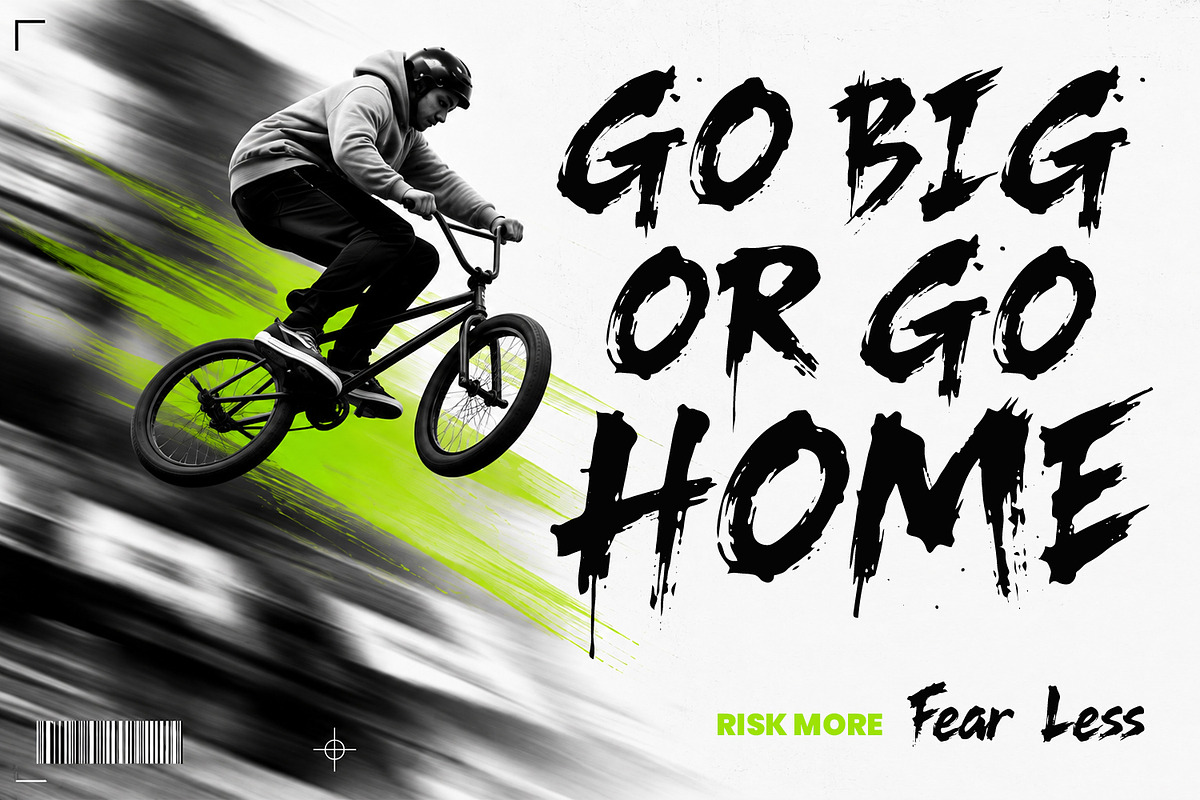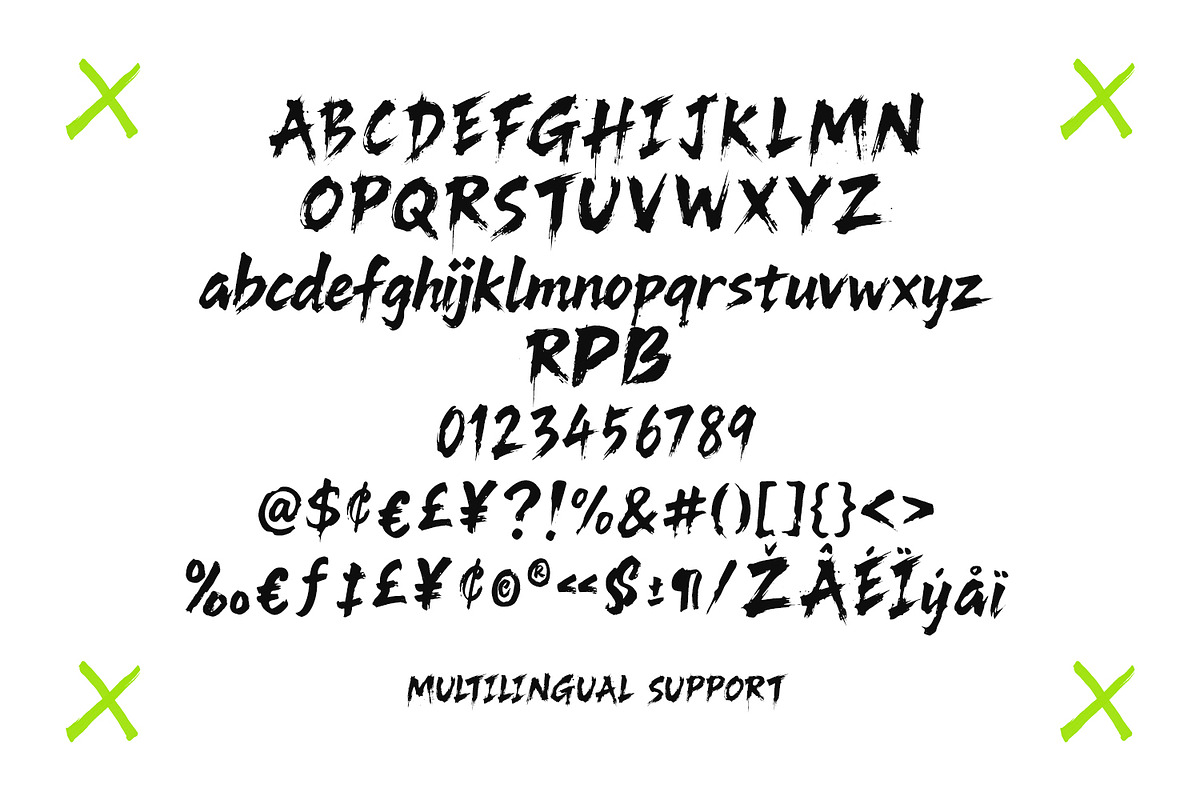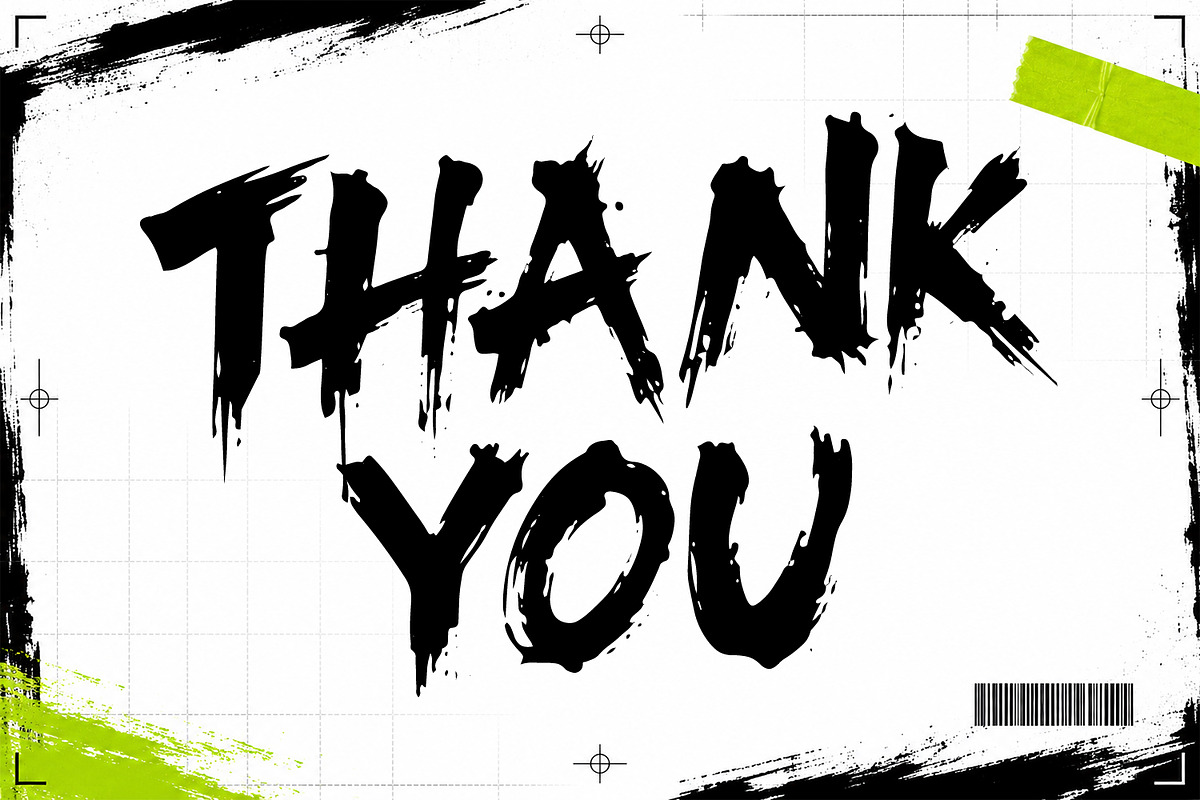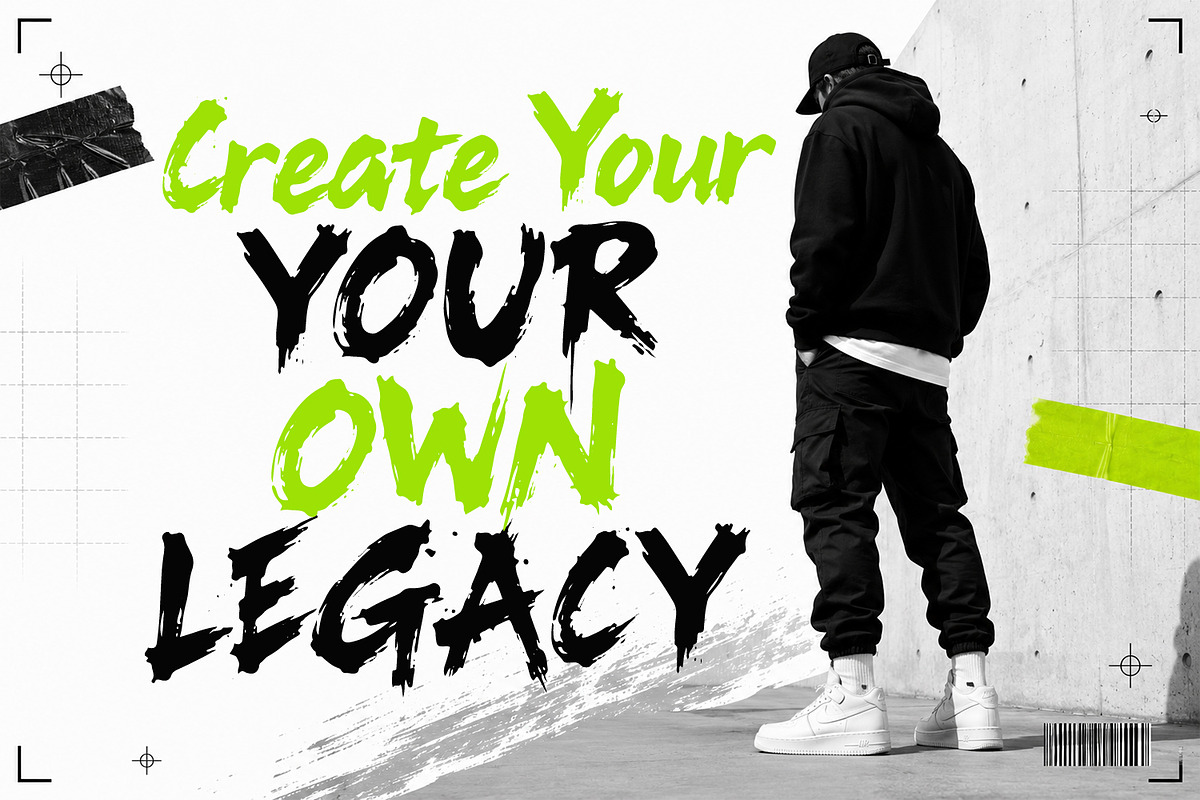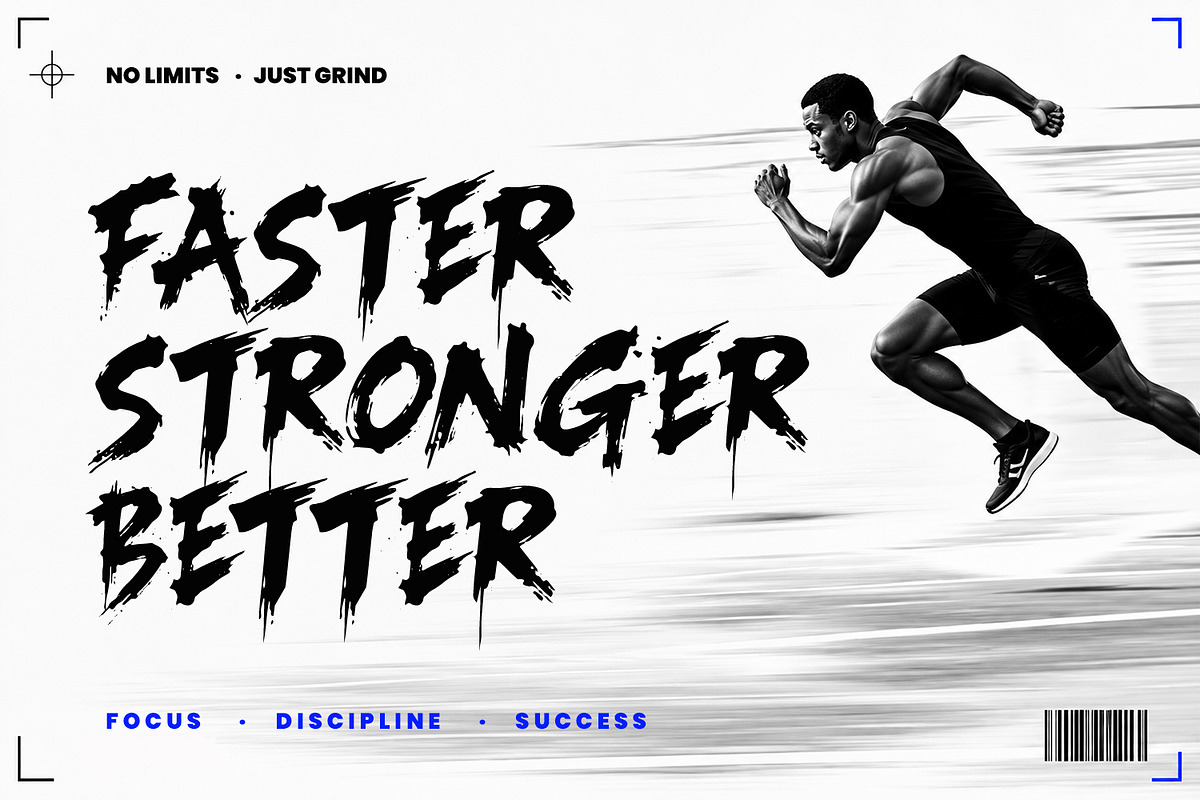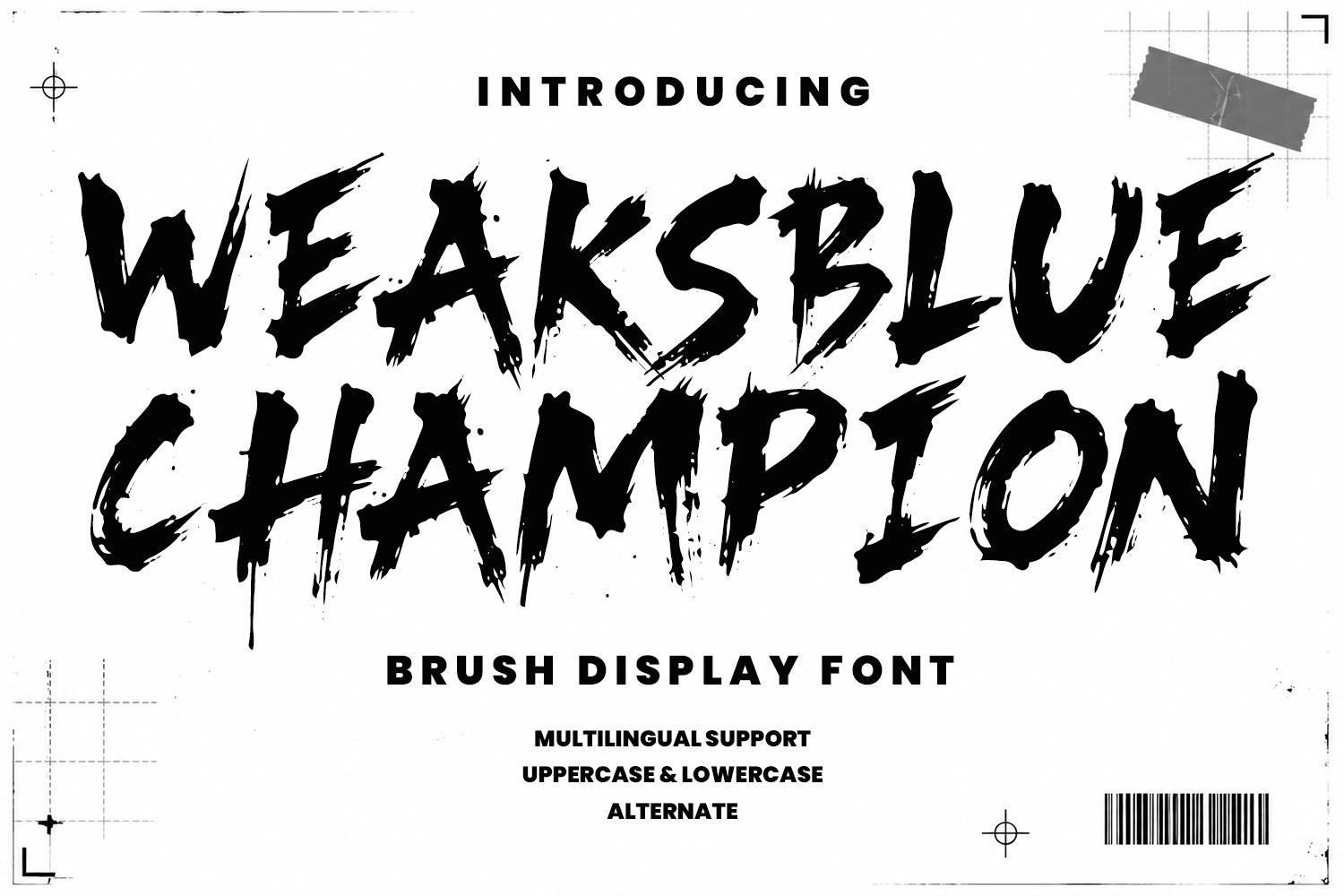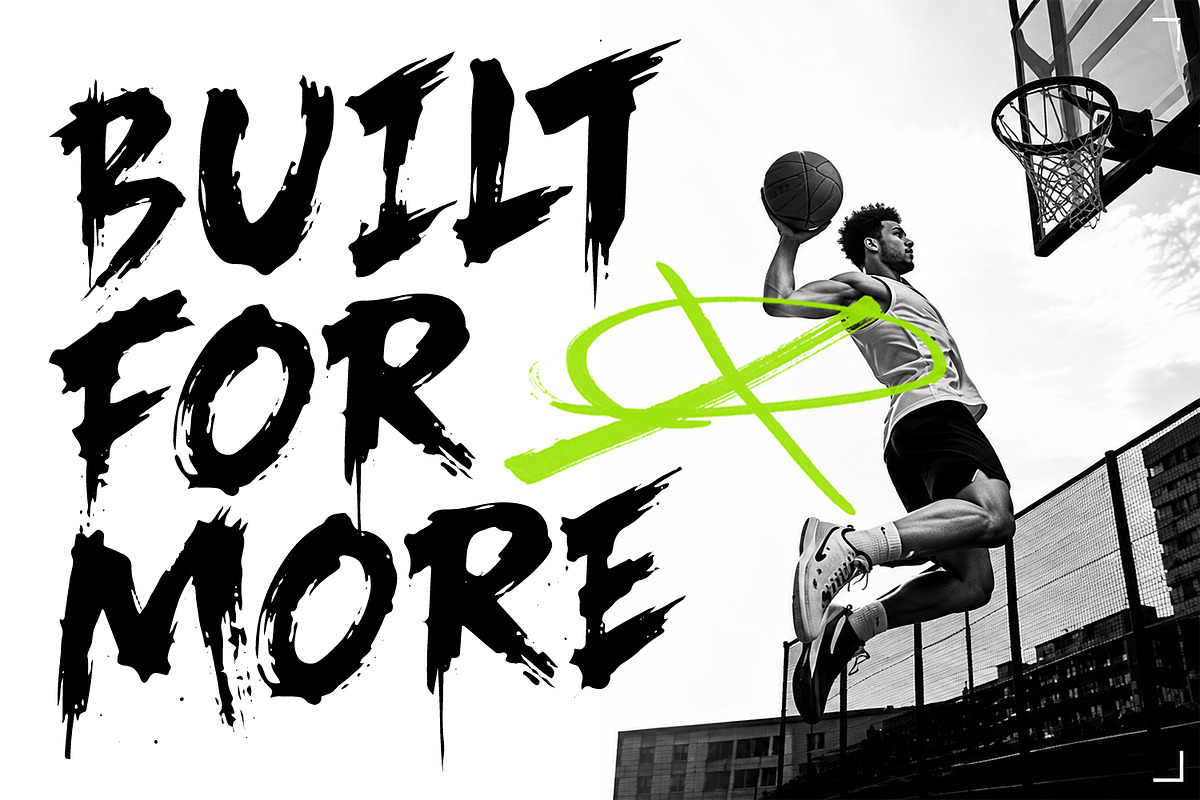
Weaksblue Champion Brush Font
WEAKSBLUE CHAMPION is a dynamic and energetic brush display font designed to bring powerful character to a wide array of projects. It features bold, hand-painted letters with natural texture and a strong visual impact, making it ideal for creating commanding headlines, distinctive logos, and eye-catching branding materials. The typeface captures an action-oriented and raw aesthetic, perfect for designs that aim to convey a sense of strength, speed, and intensity without being overly polished.
Beyond its striking appearance, WEAKSBLUE CHAMPION is crafted for functional versatility across various mediums and applications. The font comes complete with uppercase and lowercase letters, numerals, and punctuation, offering comprehensive glyph coverage for creative layouts. Multilingual support further broadens its utility for diverse and international design challenges, ensuring the font remains effective in numerous contexts and languages, from large-scale posters to dynamic digital graphics.